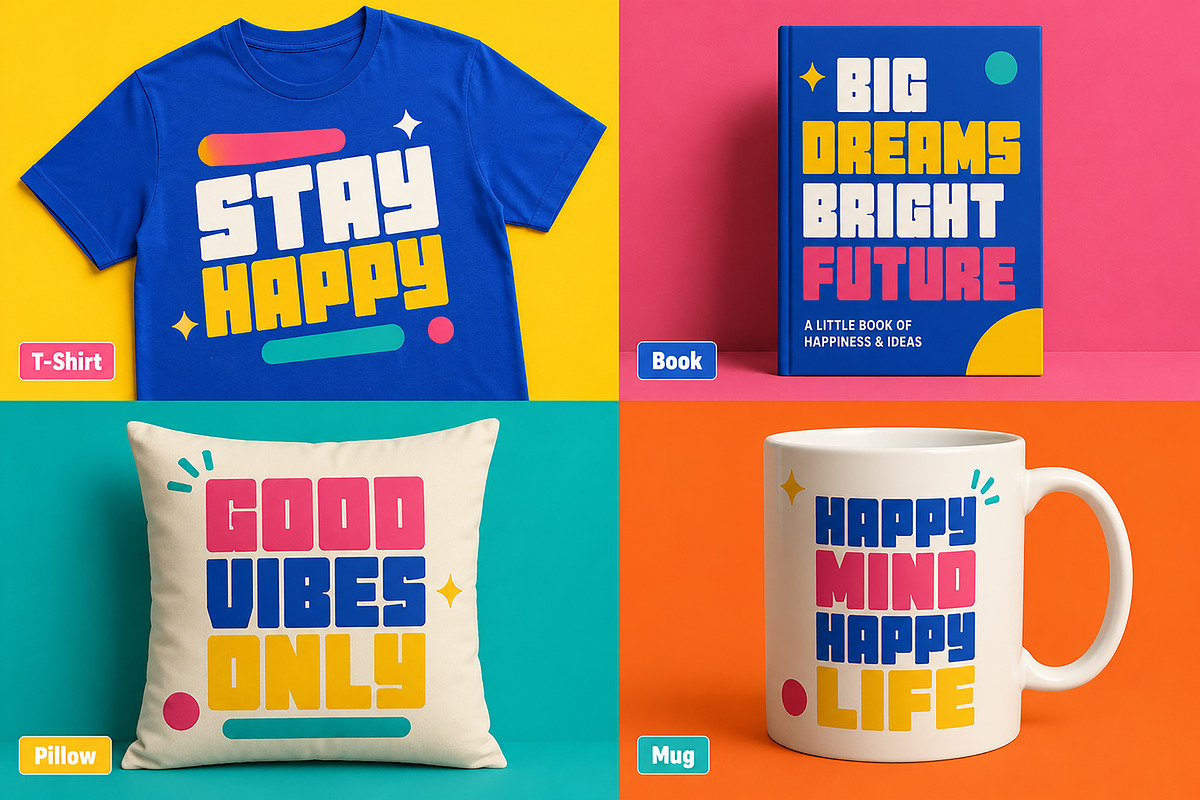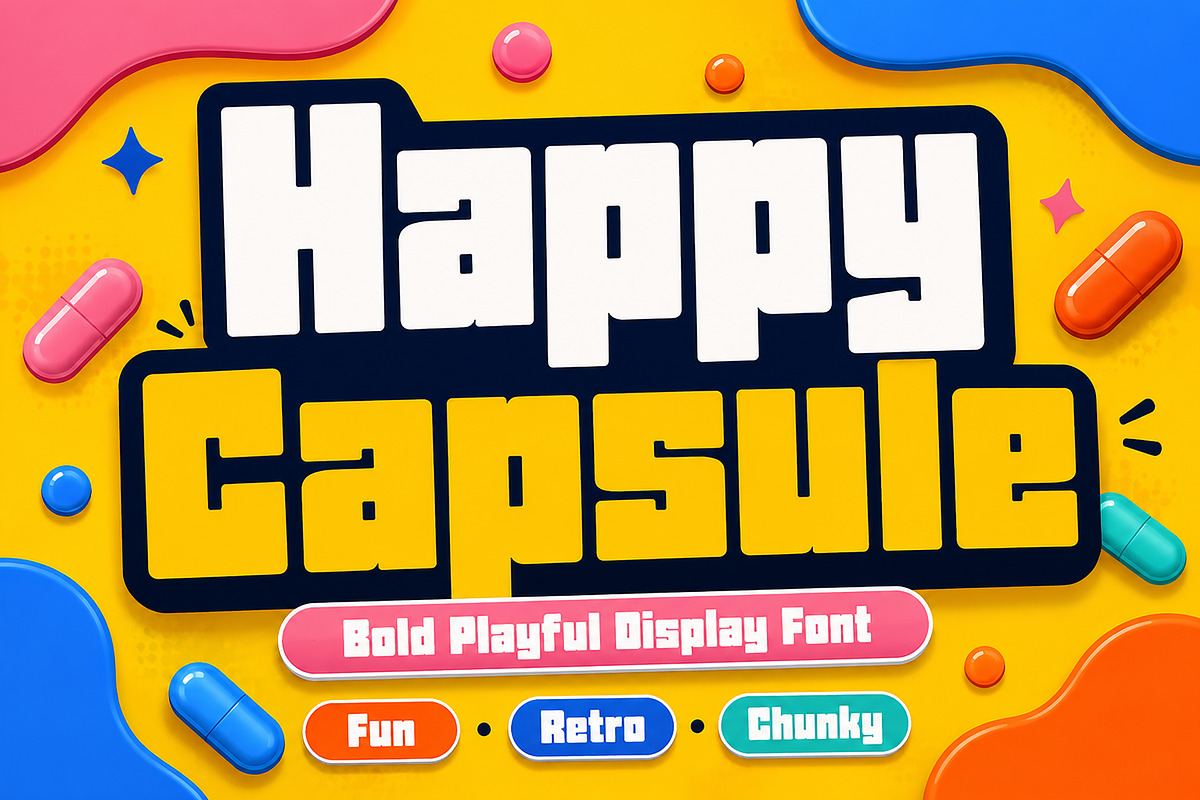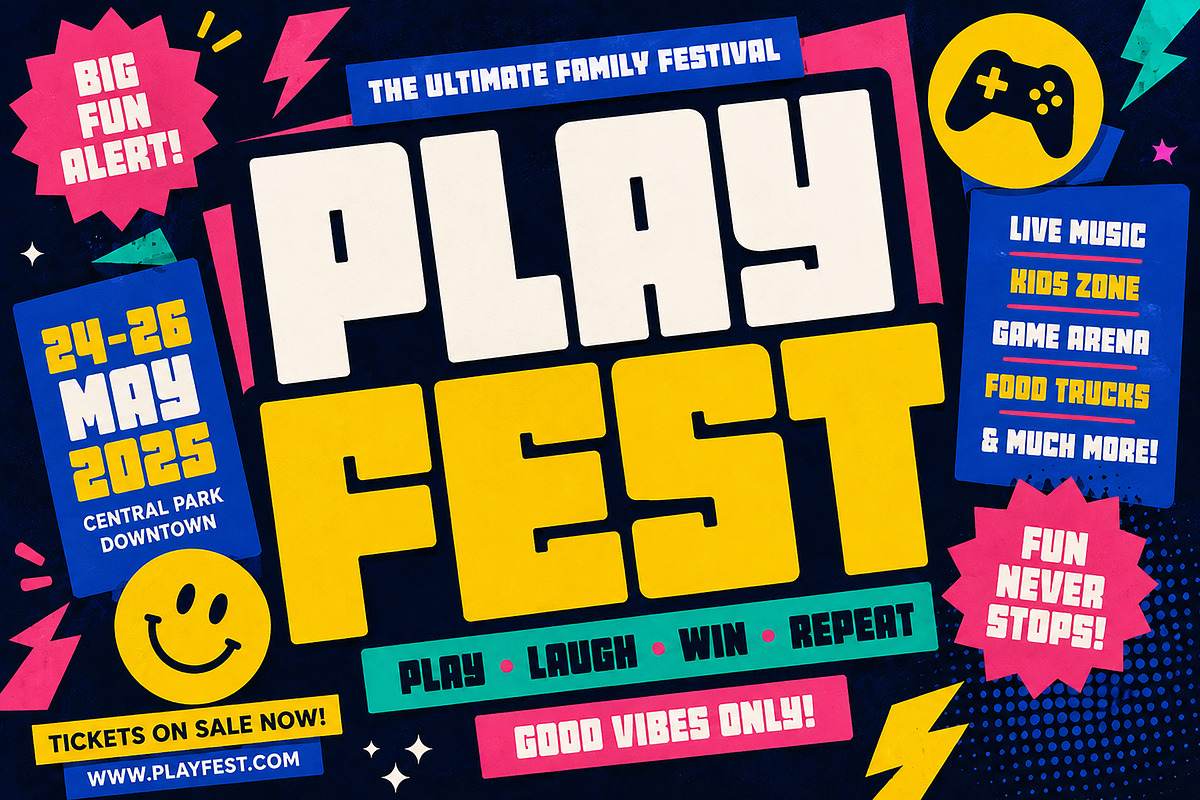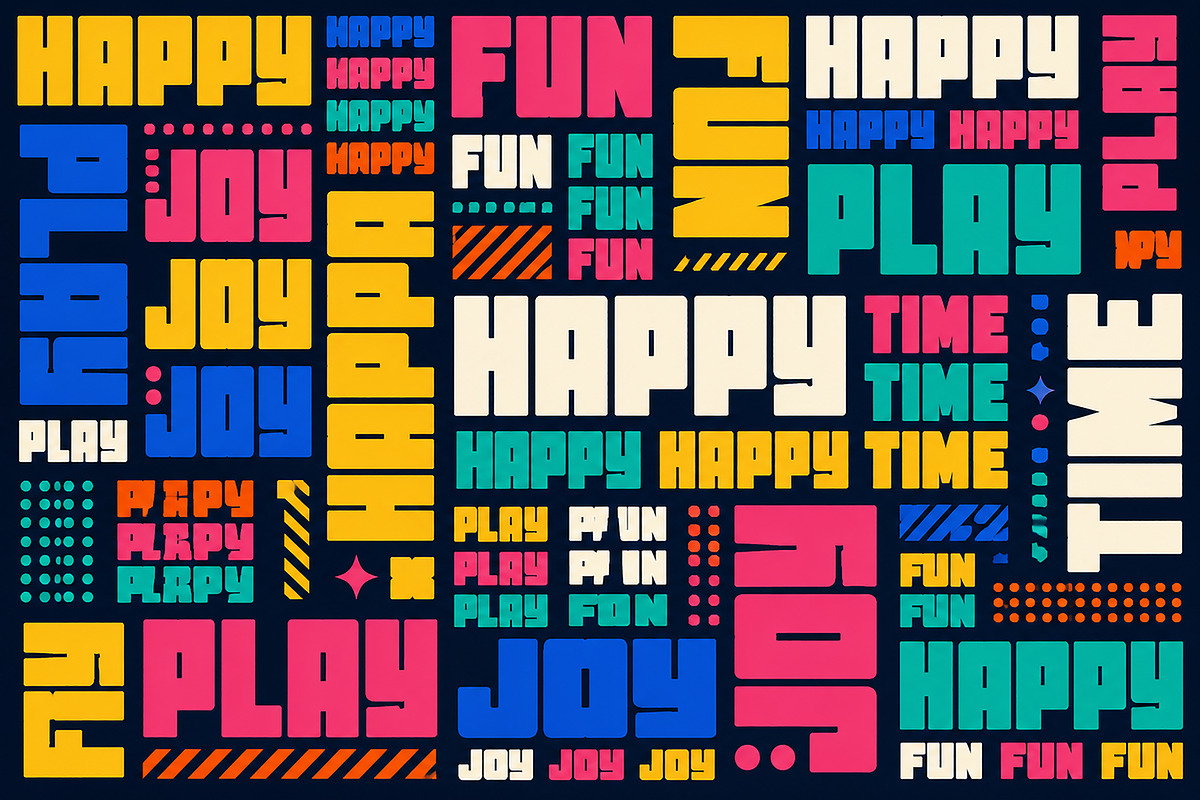
Happy Capsule
Happy Capsule is a bold, chunky, and playful display font designed to bring energy, fun, and personality into your creative projects. With its strong geometric shapes, retro-inspired structure, and modern playful vibe, this font is perfect for eye-catching designs that demand attention.
Its thick block-style letterforms make it ideal for branding, packaging, posters, children’s products, toy designs, gaming titles, social media graphics, book covers, t-shirts, mugs, pillows, and more.
Whether you're creating colorful snack packaging, festival posters, fun logos, or trendy merchandise, Happy Capsule delivers a joyful and energetic look with strong visual impact.
Bring bold fun and playful charm to your next project with Happy Capsule.